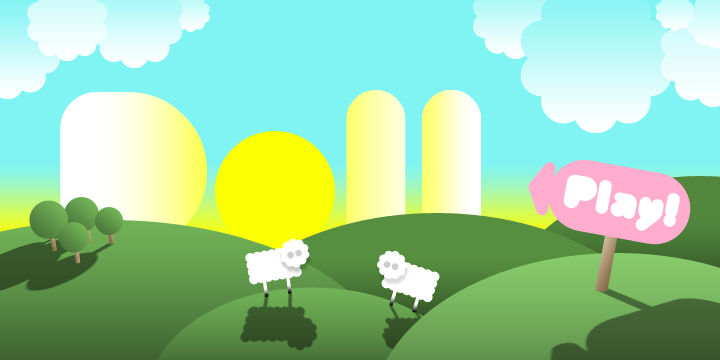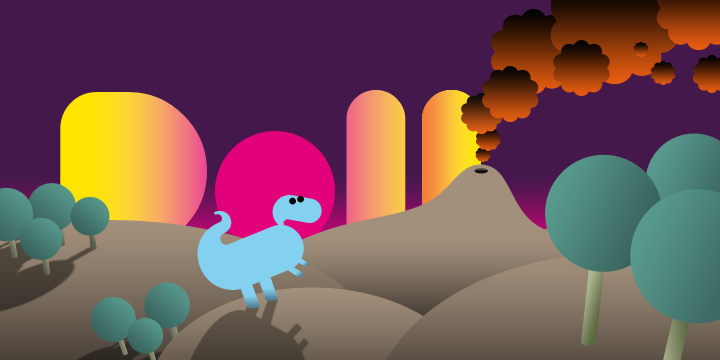
Although this typeface is bold as hell, it is still absolutely legible. If You are looking for fat curves, this is may be Your choice! There are also extra letters (A, V, v) to let You make better logos and headlines.